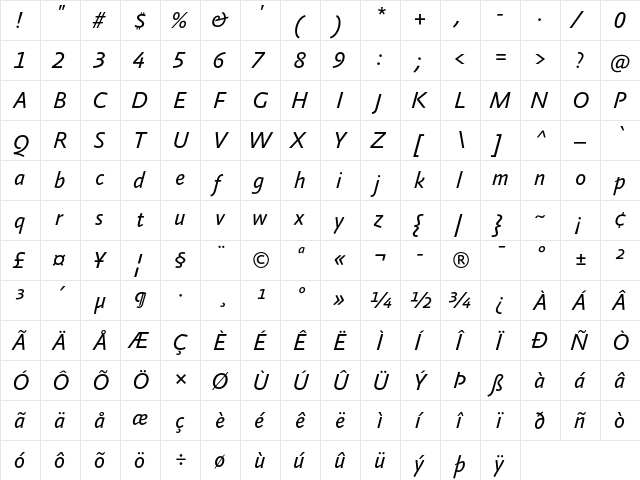
AbsaraSansTF-RegularItalic Regular Font Preview
AbsaraSansTF-RegularItalic Regular
Design Context for AbsaraSansTF-RegularItalic Typeface
AbsaraSansTF-RegularItalic offers clean, dependable letterforms without strong stylistic allegiance, making it a practical choice for designers who need flexibility. The slanted form adds forward momentum and visual energy.
Pro Tip: Use AbsaraSansTF-RegularItalic for emphasis, pull quotes, and subheadings where its slanted energy can add rhythm to the layout.